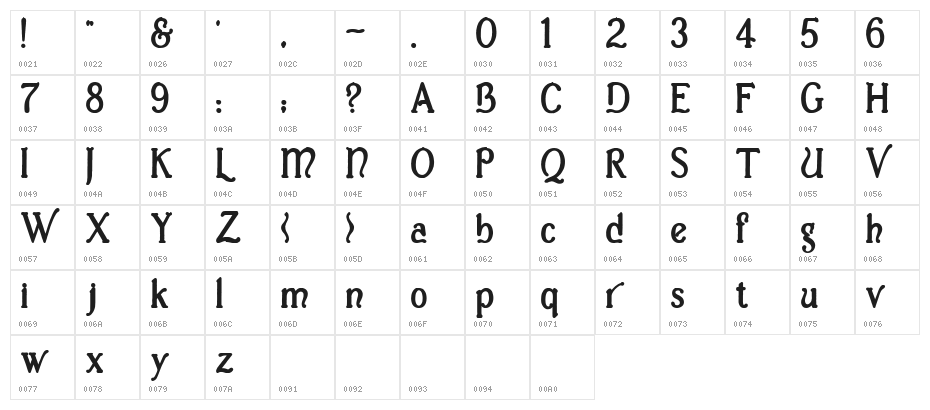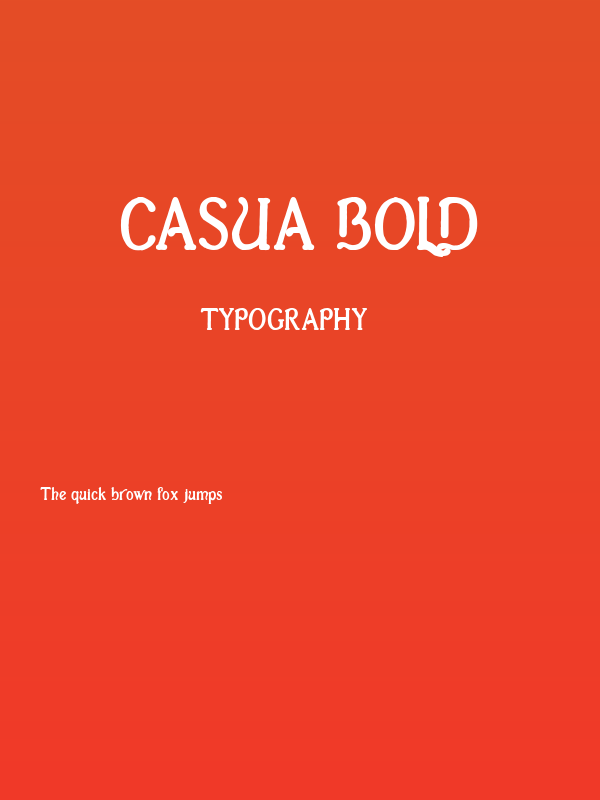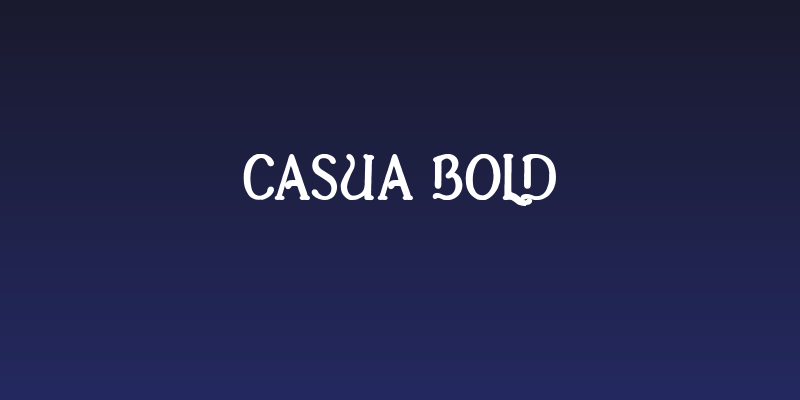
Casua_Bold Font
Casua_Bold Description
This font features a playful and casual style with a bold presence. The characters have a hand-drawn quality, with rounded edges and a slight irregularity that adds to its charm. The uppercase letters are tall and slightly narrow, while the lowercase letters maintain a consistent height, creating a harmonious balance. The numbers are bold and clear, making them easily readable. Special characters are included, maintaining the same playful style. This font is ideal for projects that require a friendly and approachable feel.
| Proposed Projects | Great for children's books, casual branding, playful posters, and greeting cards. |